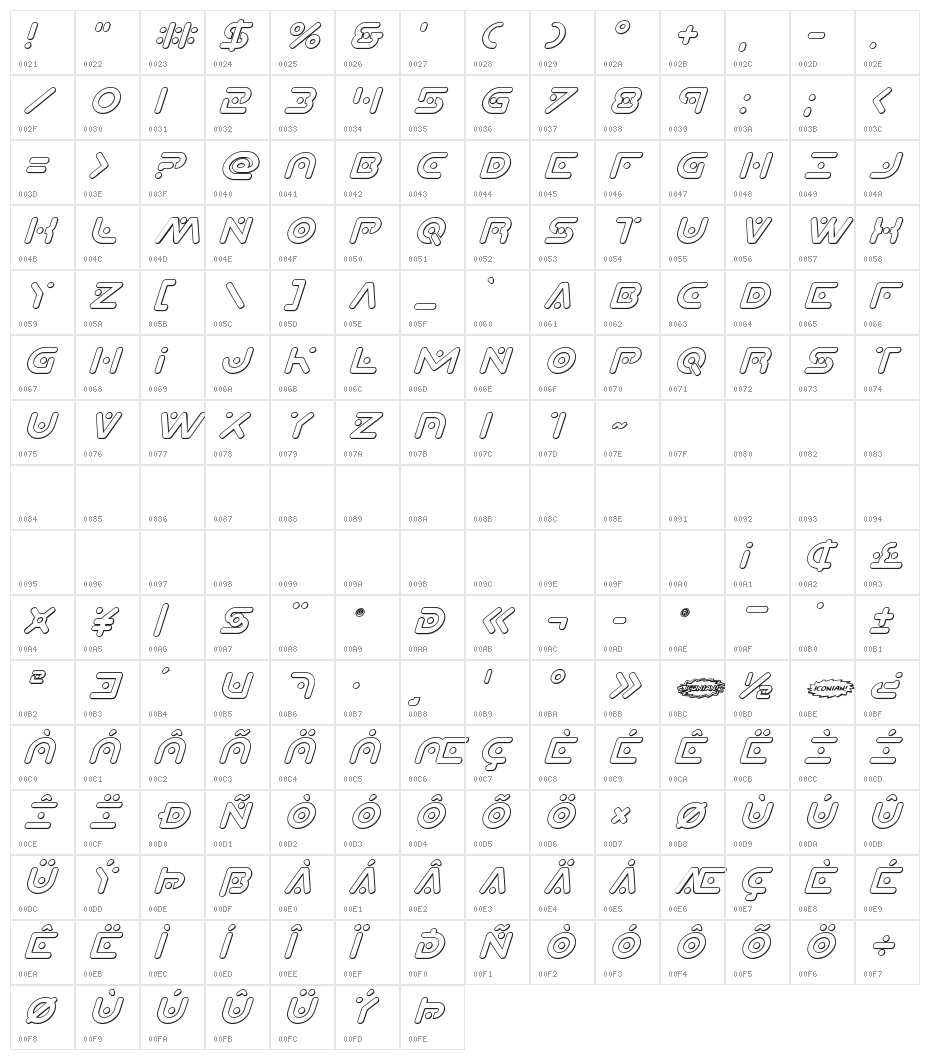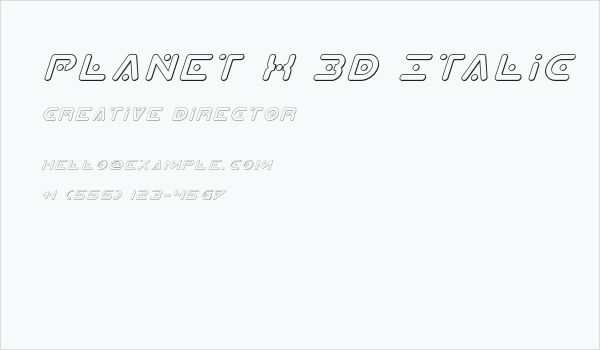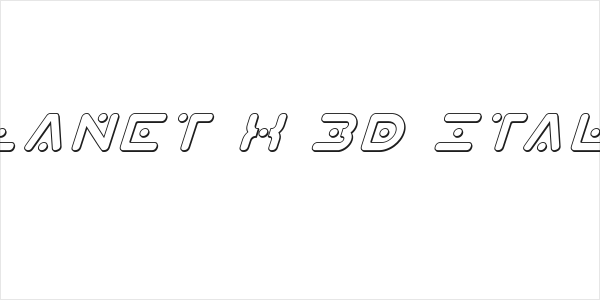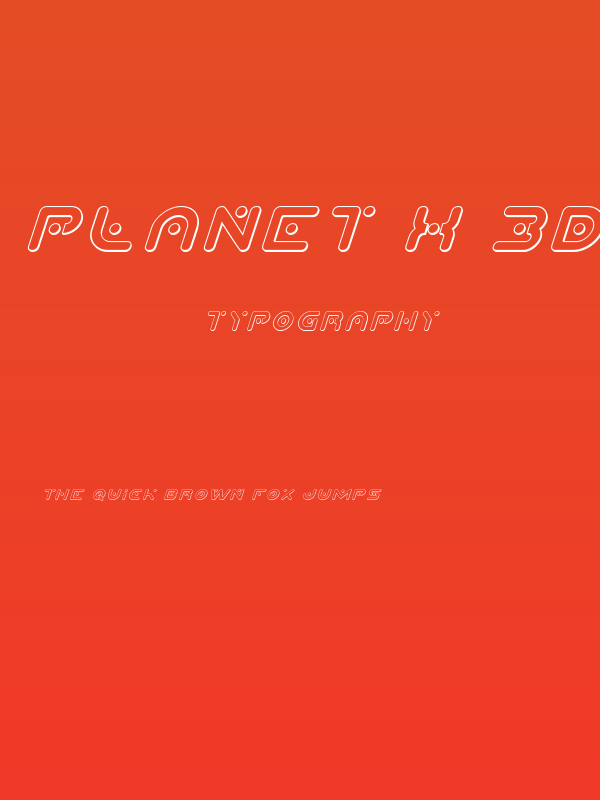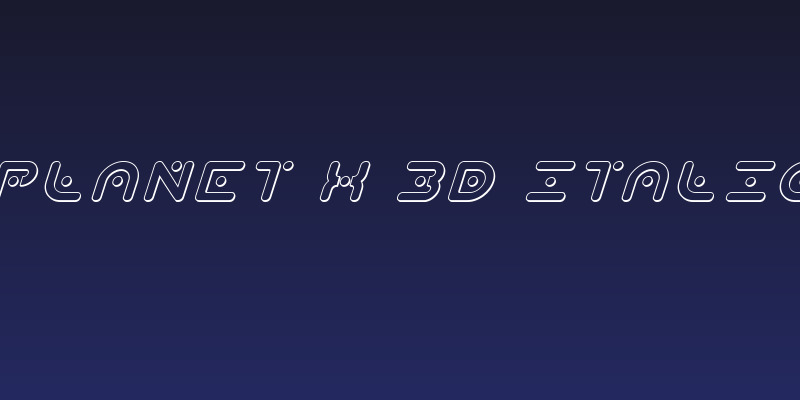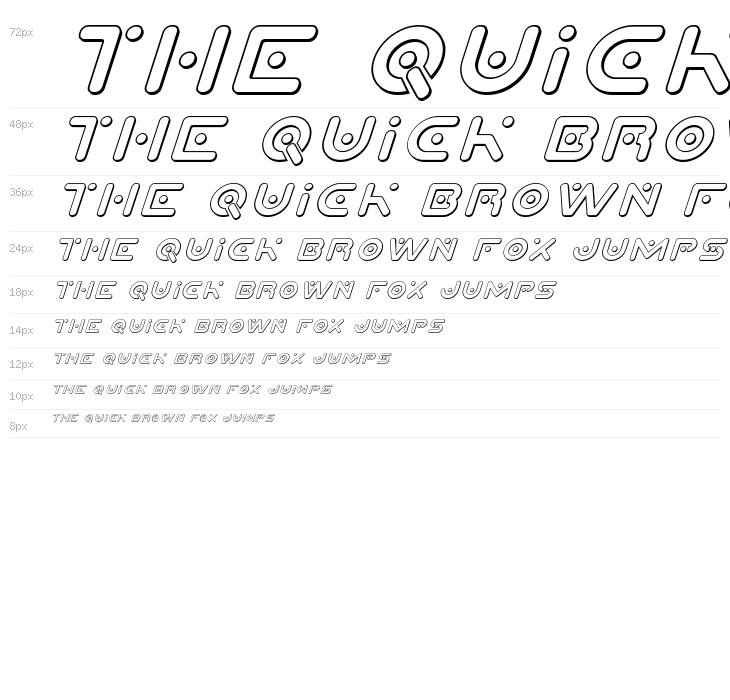
Planet X 3D Italic Font
Planet X 3D Italic Description
This font features a futuristic and three-dimensional design, characterized by its bold, geometric shapes and italicized slant. The letters are outlined, giving them a hollow appearance that enhances the 3D effect. The style is consistent across uppercase, lowercase, numbers, and special characters, maintaining a cohesive look. The font's unique design elements, such as rounded edges and angular cuts, contribute to its modern and dynamic aesthetic. It is particularly suitable for projects that require a sense of innovation and forward-thinking, such as technology branding or sci-fi themed designs.
| Proposed Projects | Ideal for technology branding, sci-fi themed designs, video game titles, and innovative product packaging. |